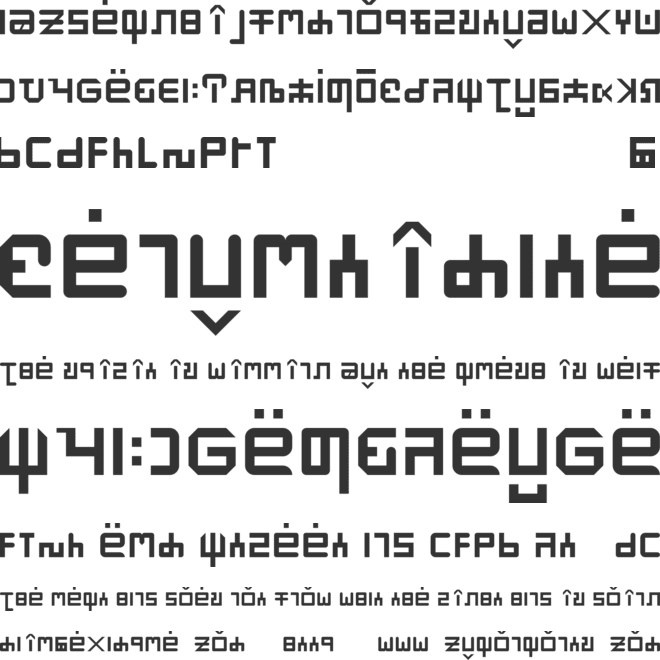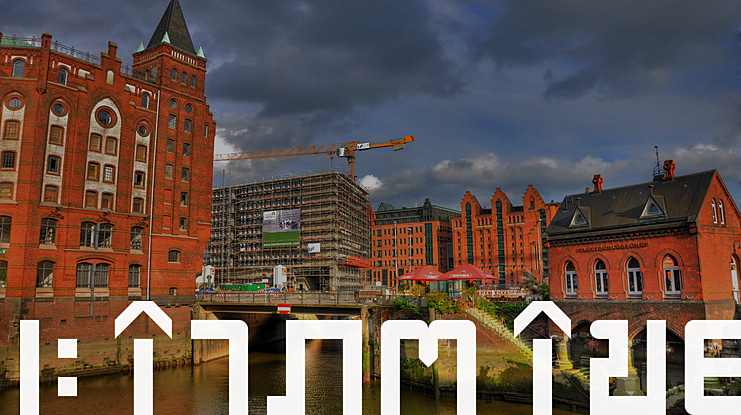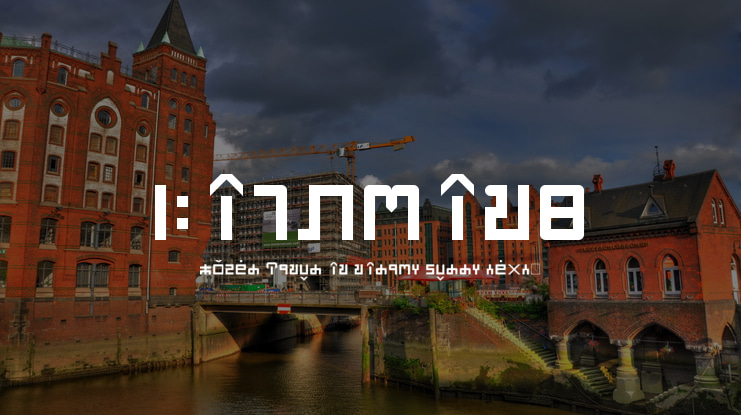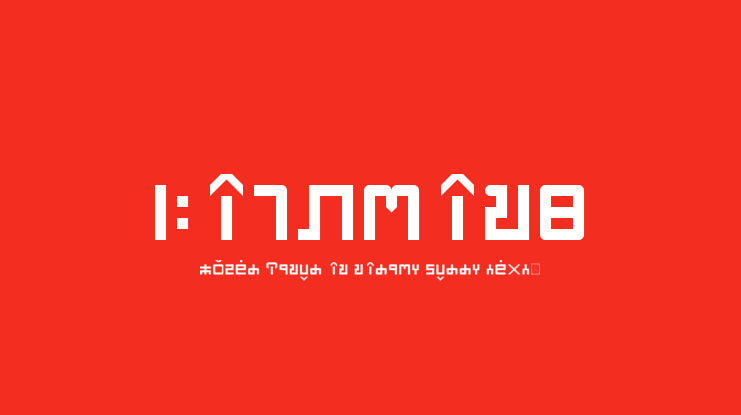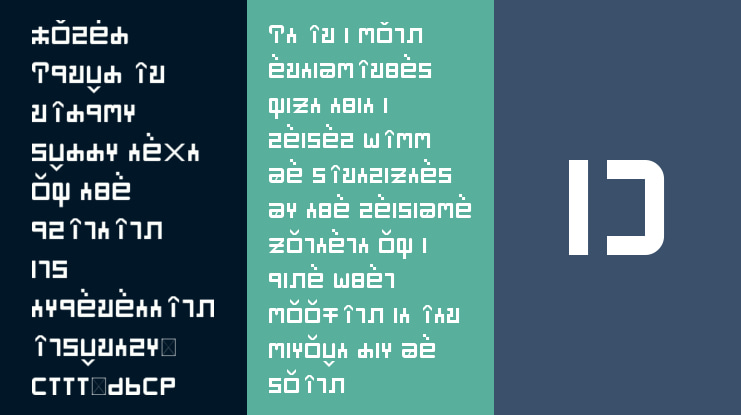
Hinglish Font
This font is purely based on devanagri script and is a mix of fonts from english and devanagri script and it is a duplicate of the devanagri script except the vowels which do not follow the rules of sanskrit or hindi script .. You can also write the vowels according to the rules on your paper separately using the acute and big accents of vowels but this font doesnot allow you to write like sanskrit script..if you have any queries please feel free to contact us..